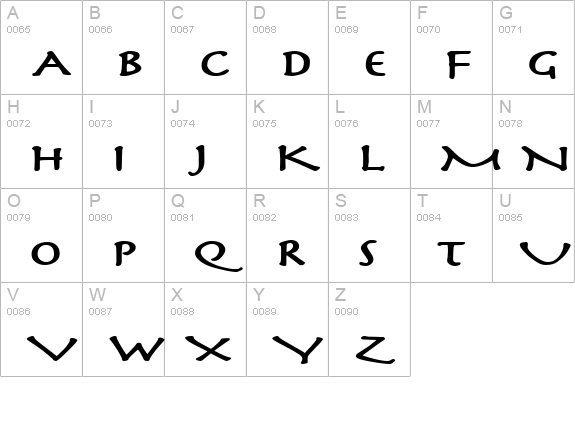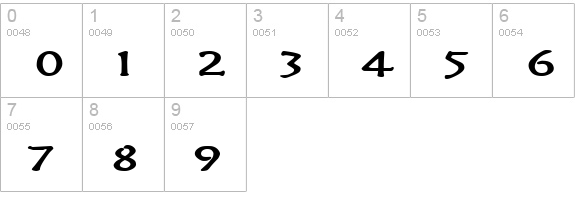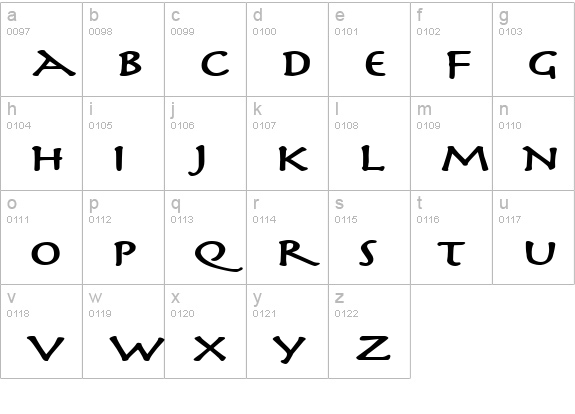
Mythology Extended Bold is a strong, high-contrast, extended-width variant in the Mythology typeface family \xE2\x80\x94 well suited to headlines, attention-grabbing titles, and strong calls-to-action.
Mythology Extended Bold font is a striking and powerful typeface that exudes a sense of mystery and grandeur. With its strong, bold strokes and intricate details, this font is perfect for making a statement and commanding attention. Whether used in headlines, logos, or other creative projects, Mythology Extended Bold brings a touch of ancient mythology and legend to your designs. The best part? Mythology Extended Bold font is completely free to download at FontsMarket.com. You can easily add this captivating typeface to your collection and use it for both personal and commercial projects without any cost. Don't miss out on this opportunity to elevate your designs with the captivating allure of Mythology Extended Bold font.